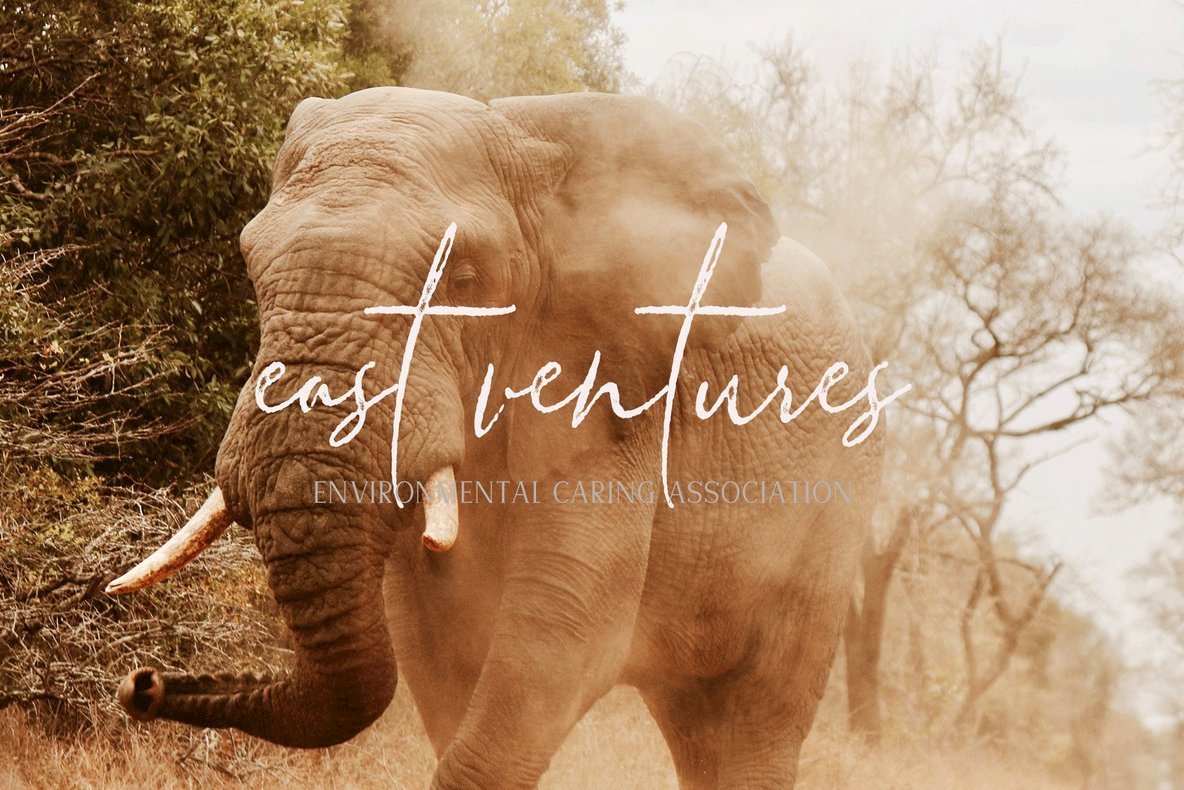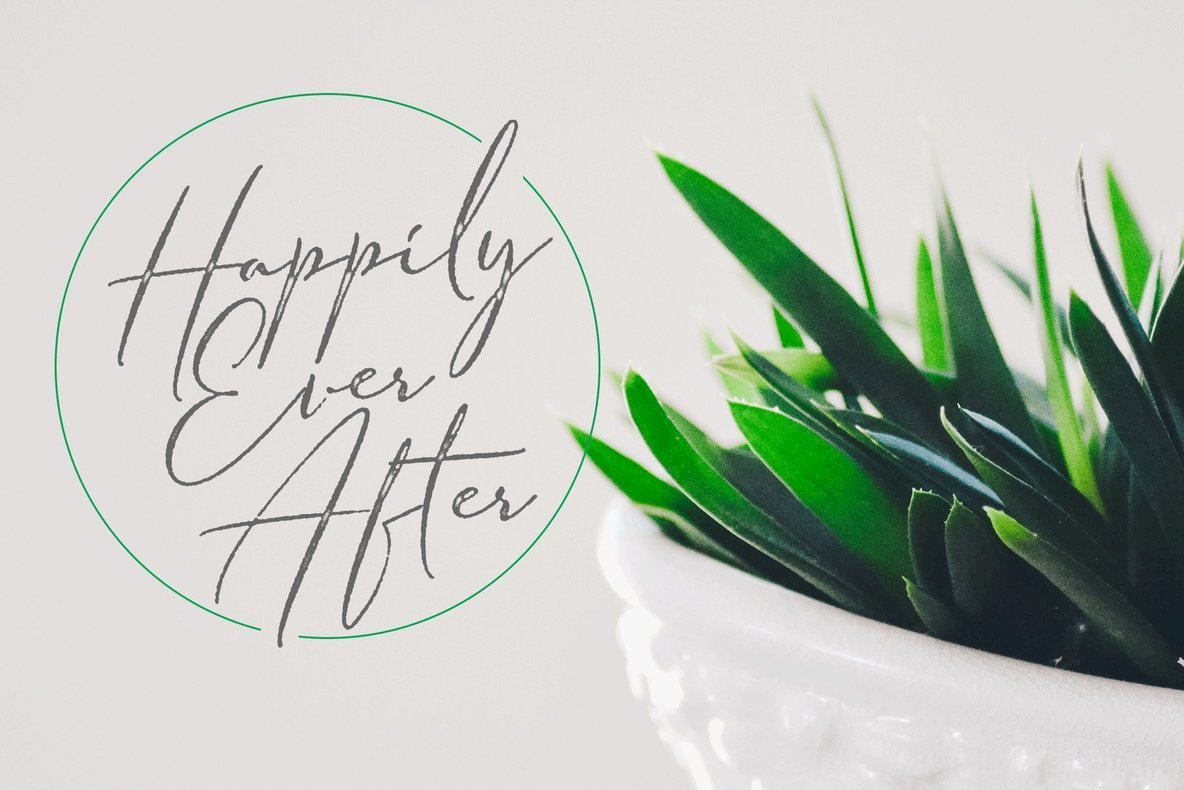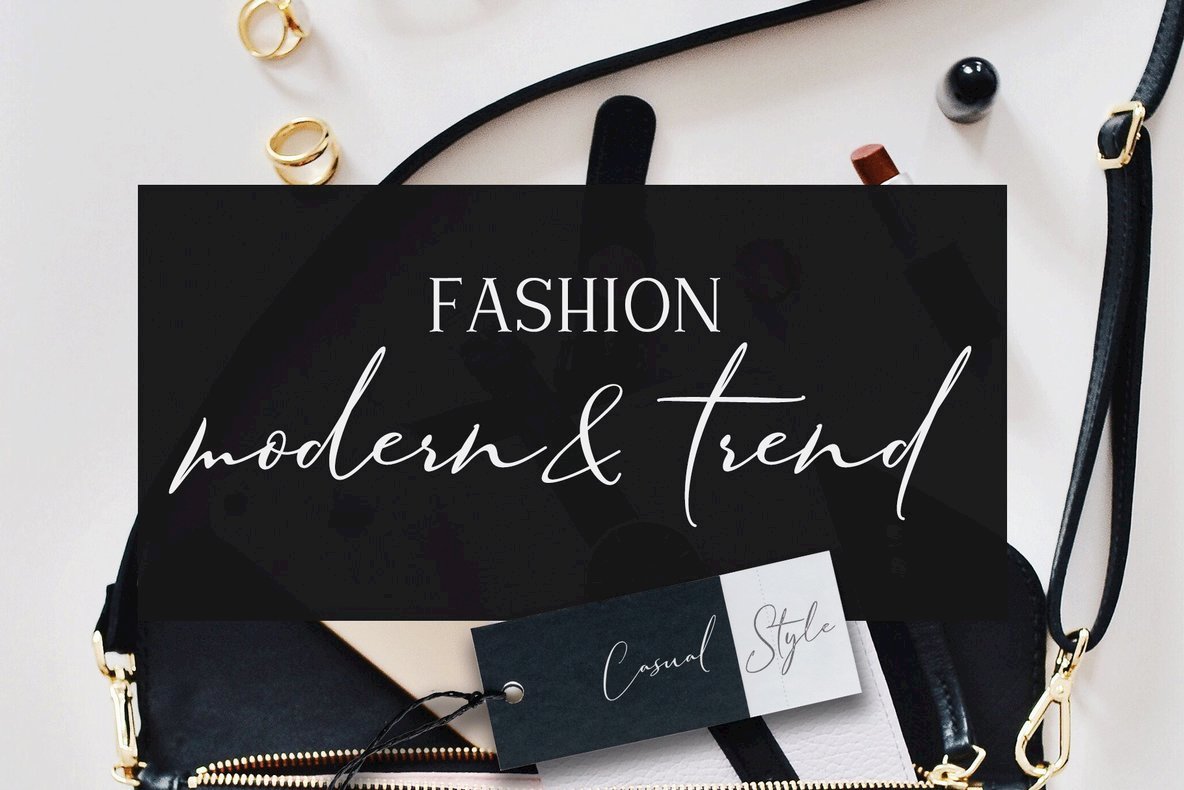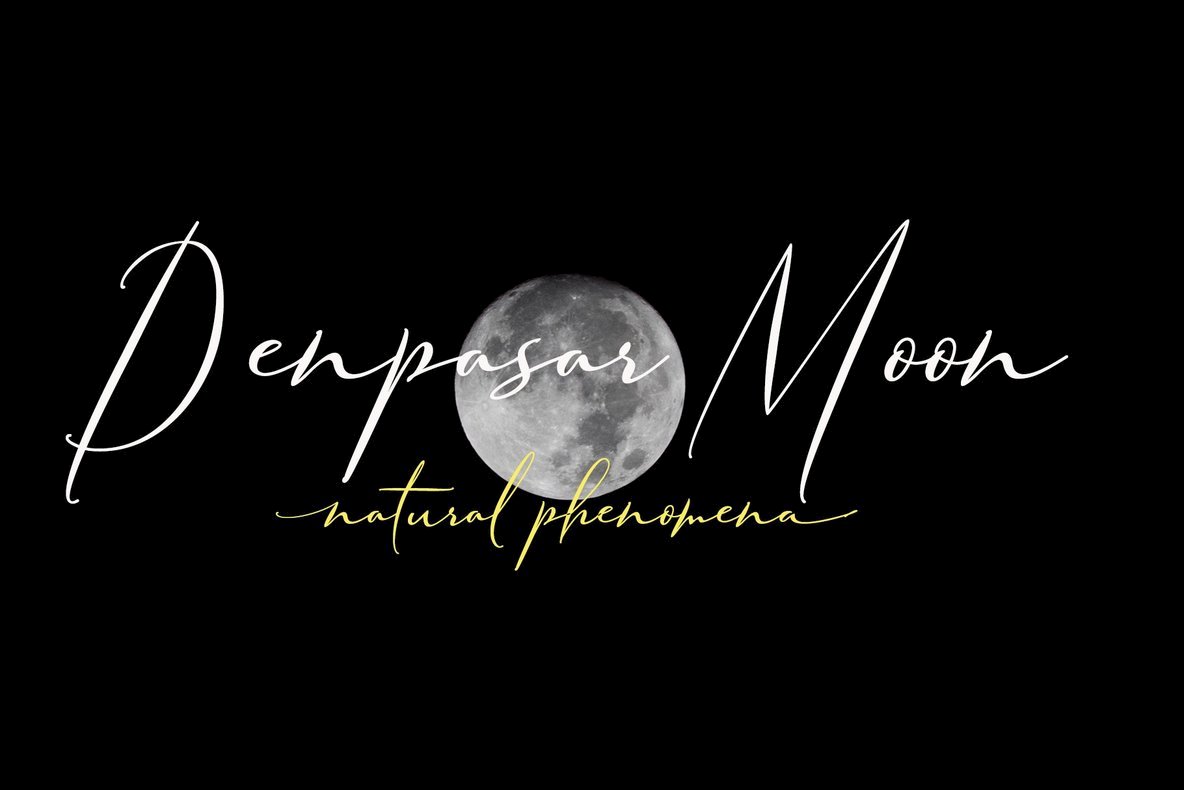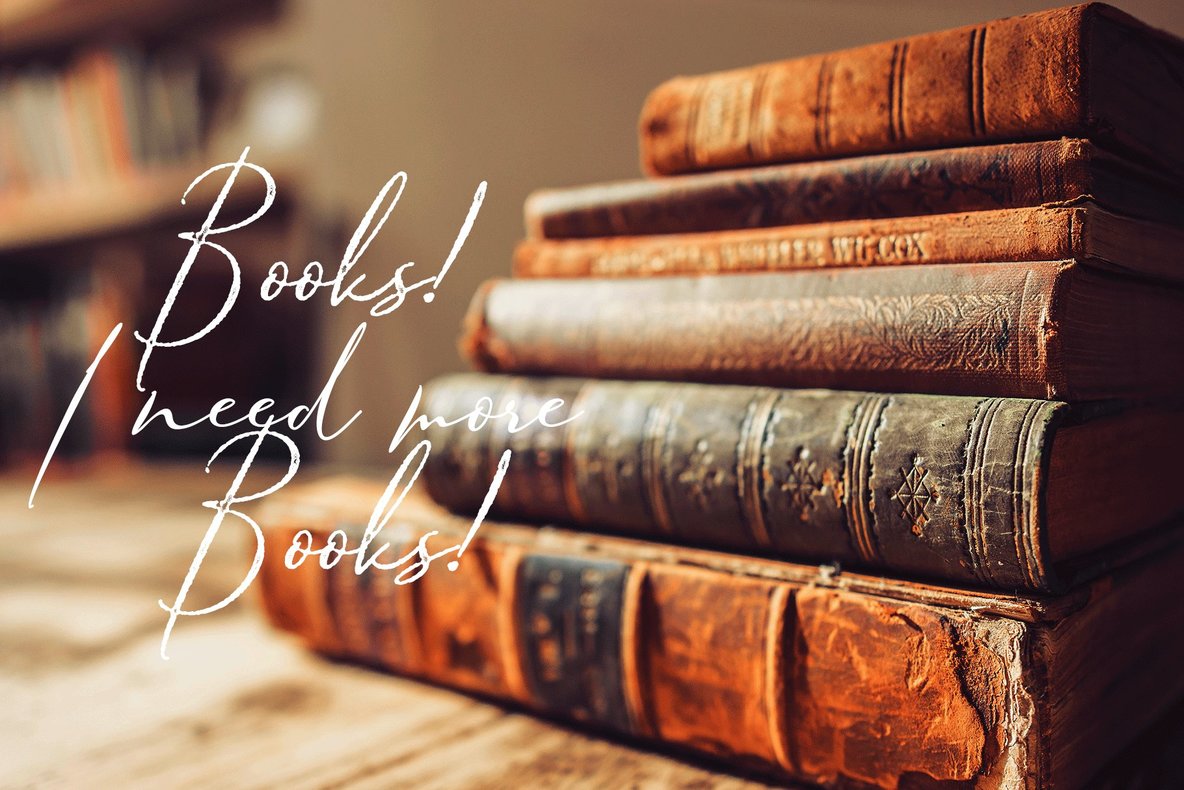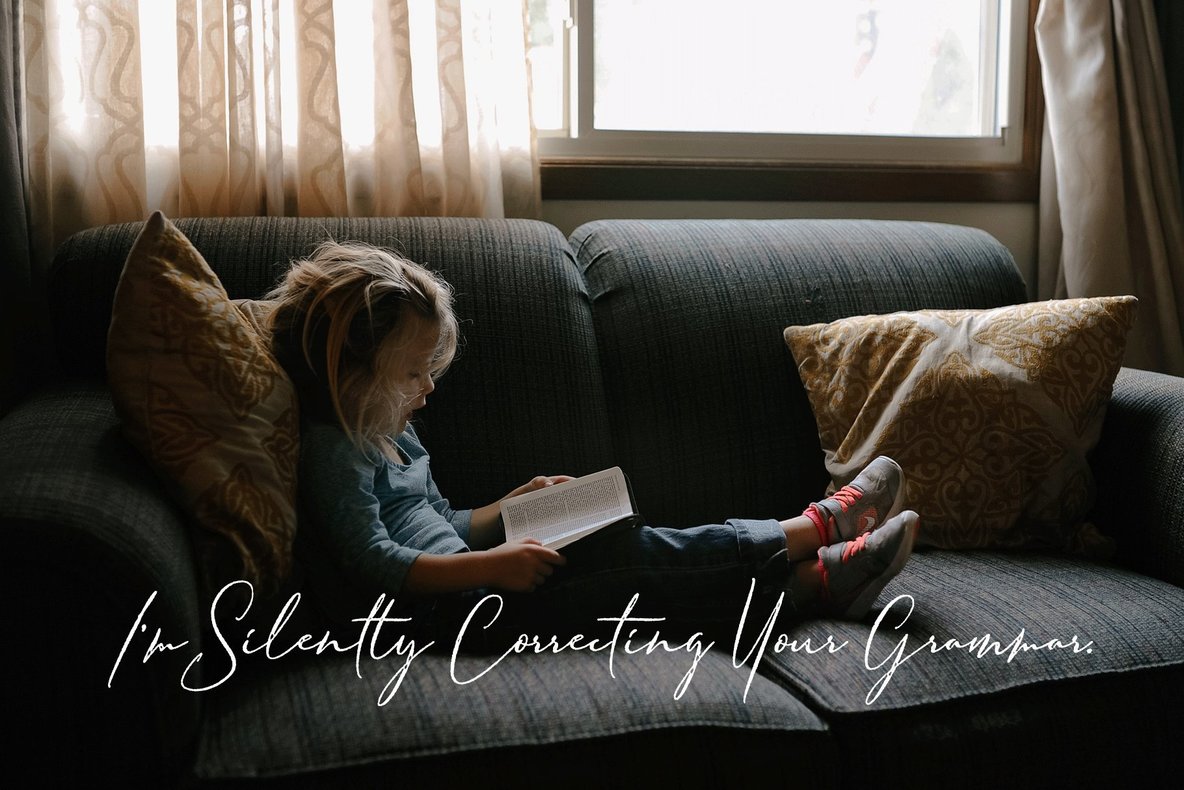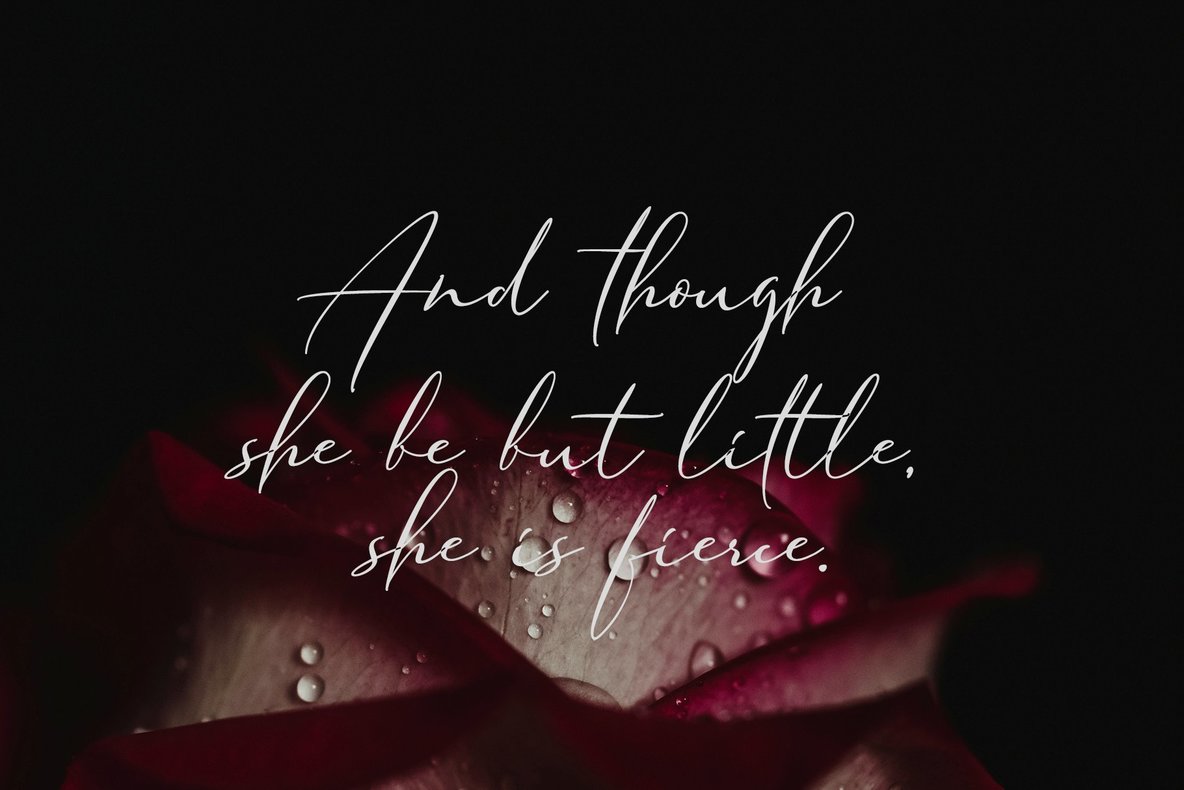
Armando Font
The Armando typeface encapsulates the essence of handwritten artistry, designed with the fluidity of a liquid ink pen. It infuses your creative projects with a natural and distinct character, ideal for a wide array of applications ranging from invitations to branding.Armando: Elegance in Handwritten Typography